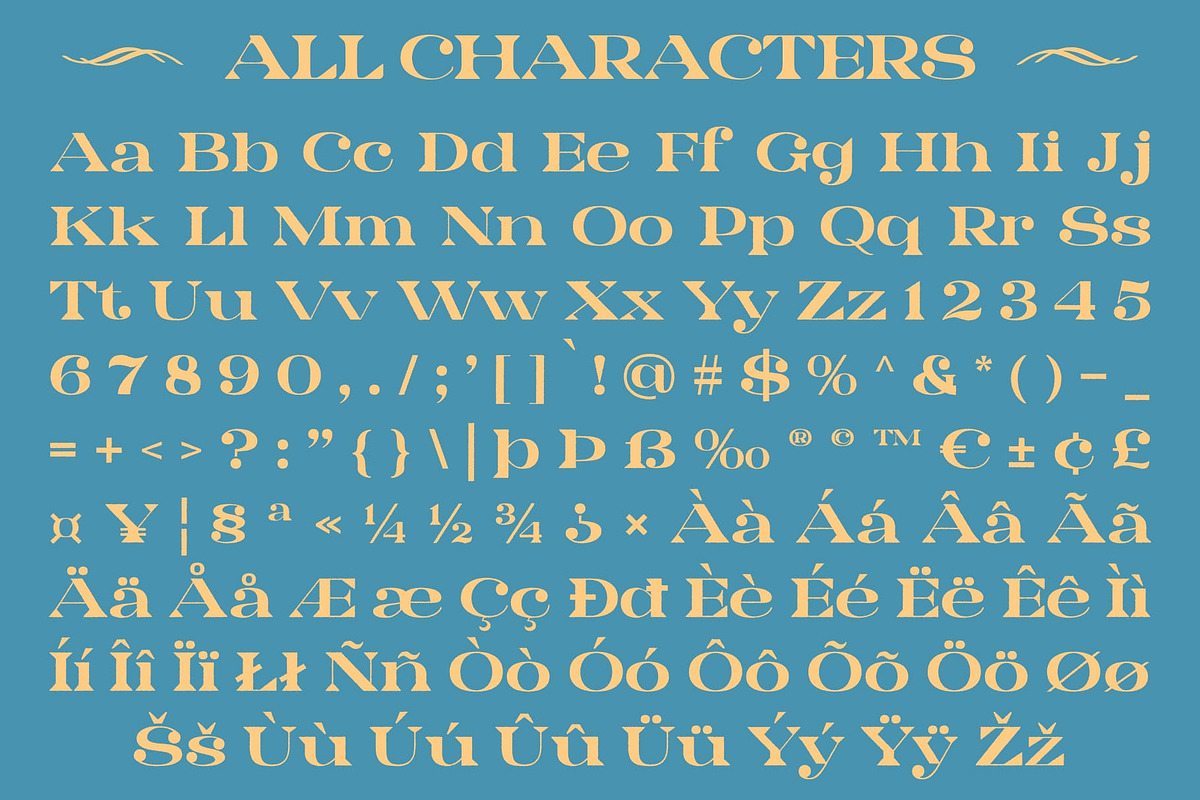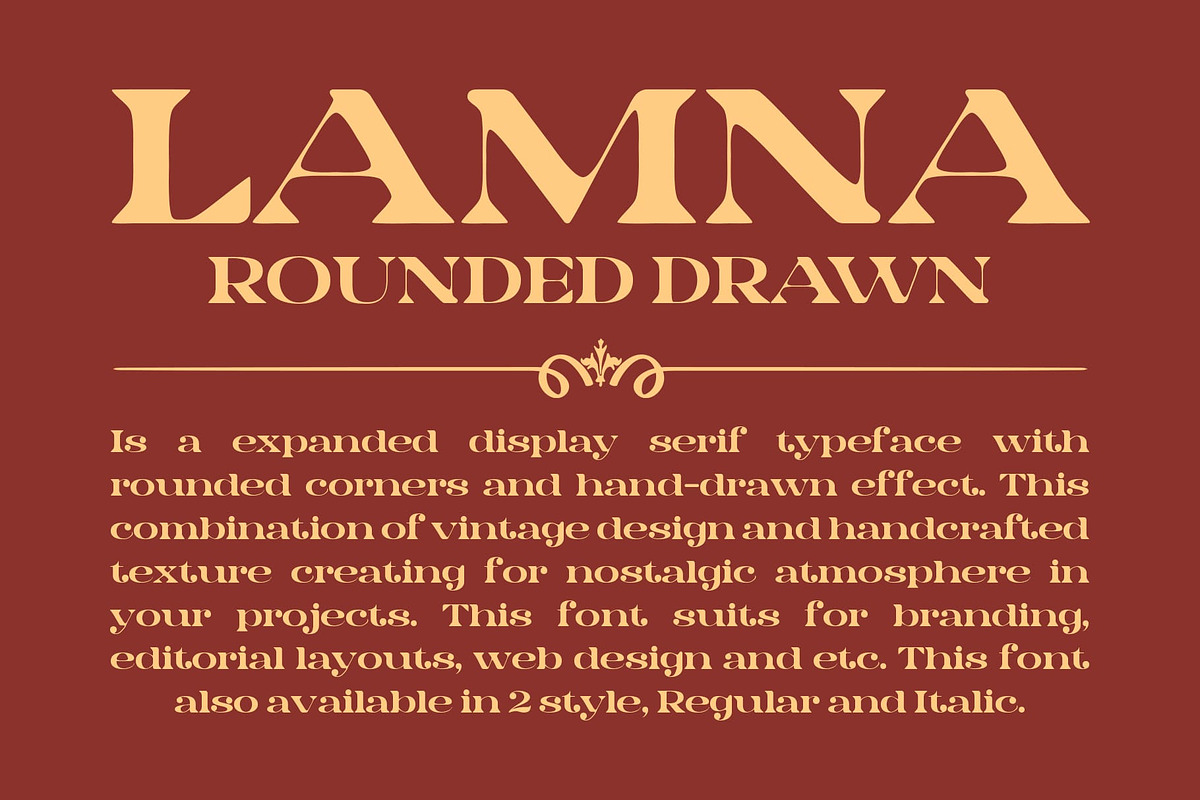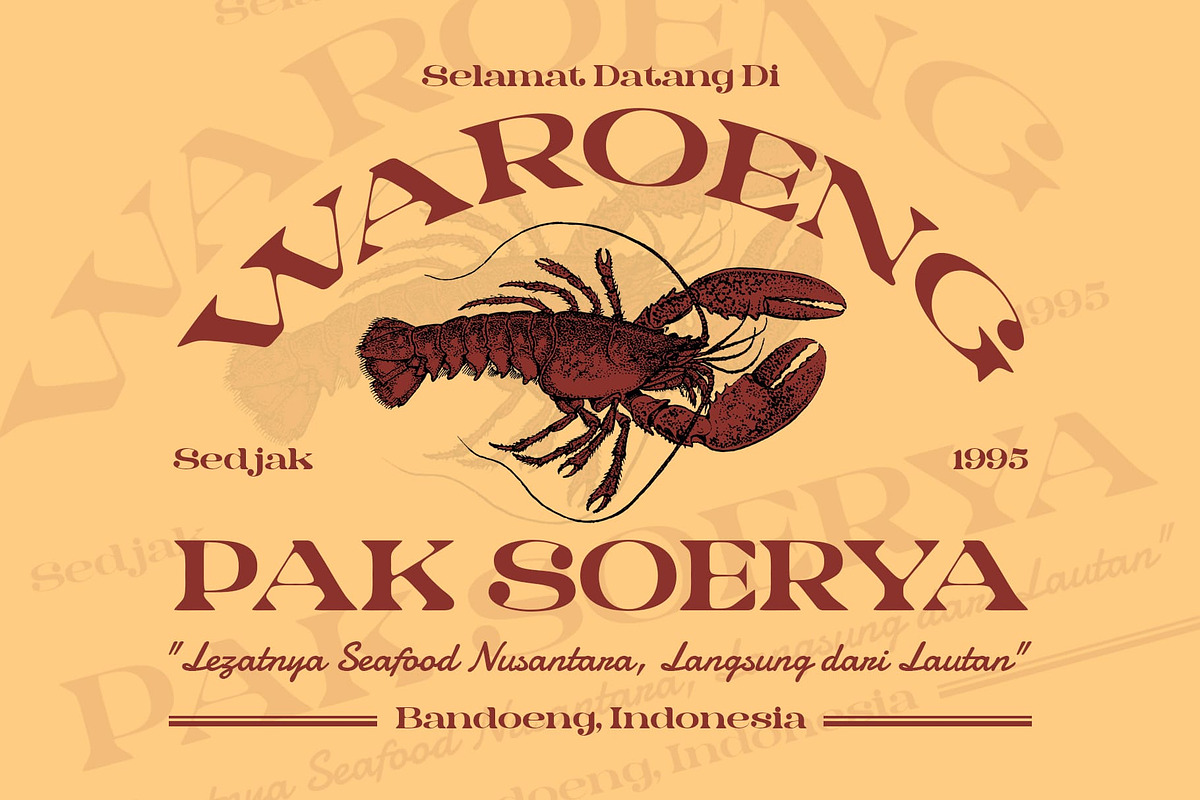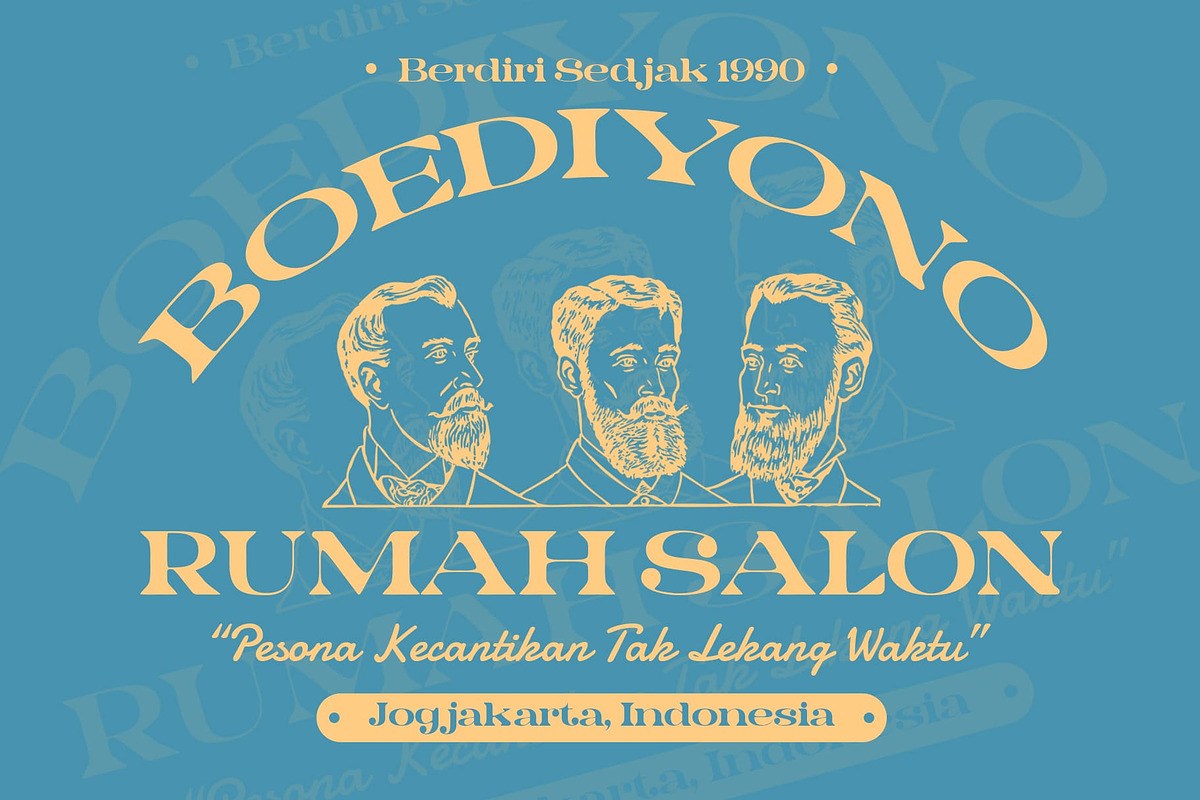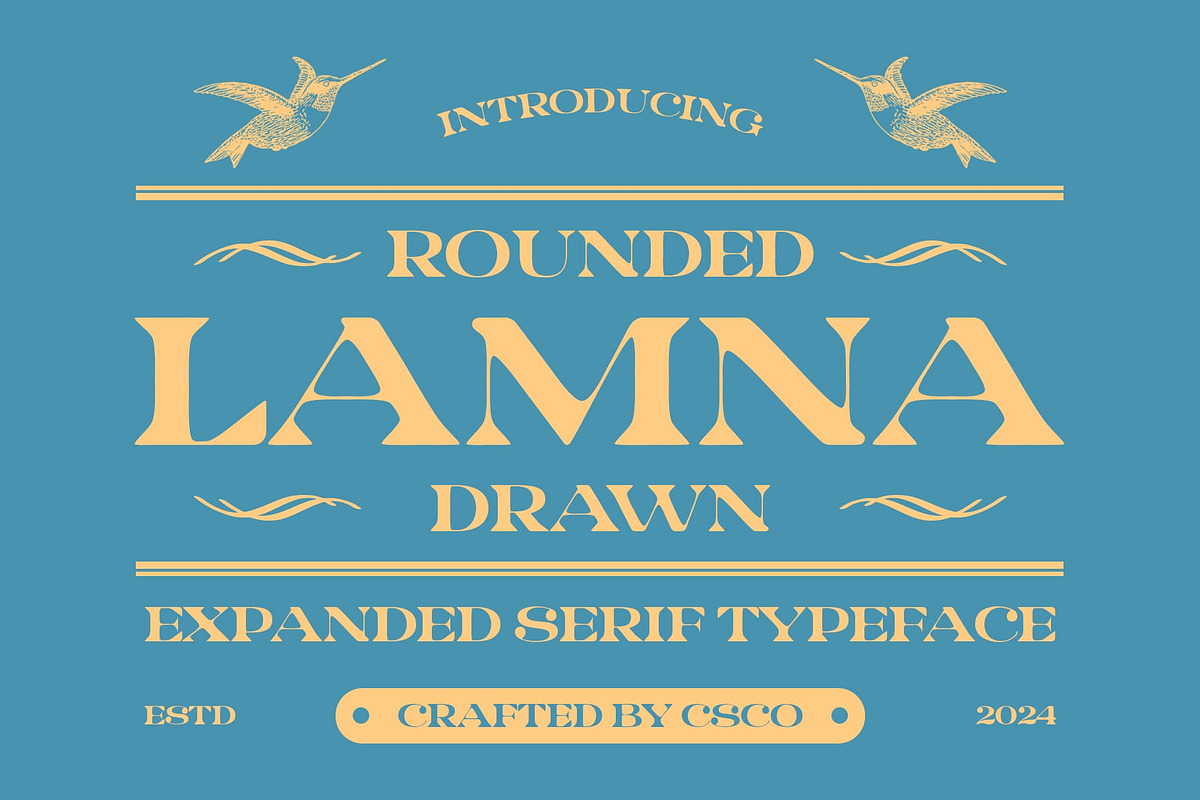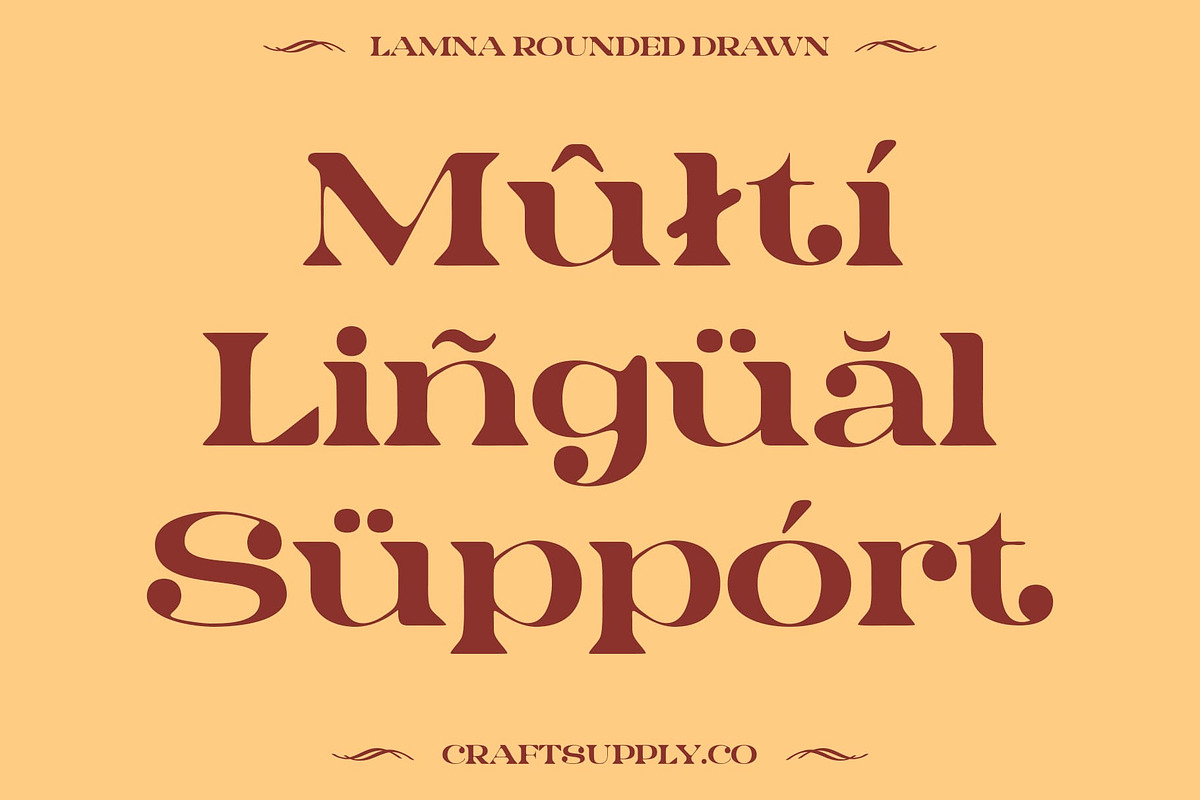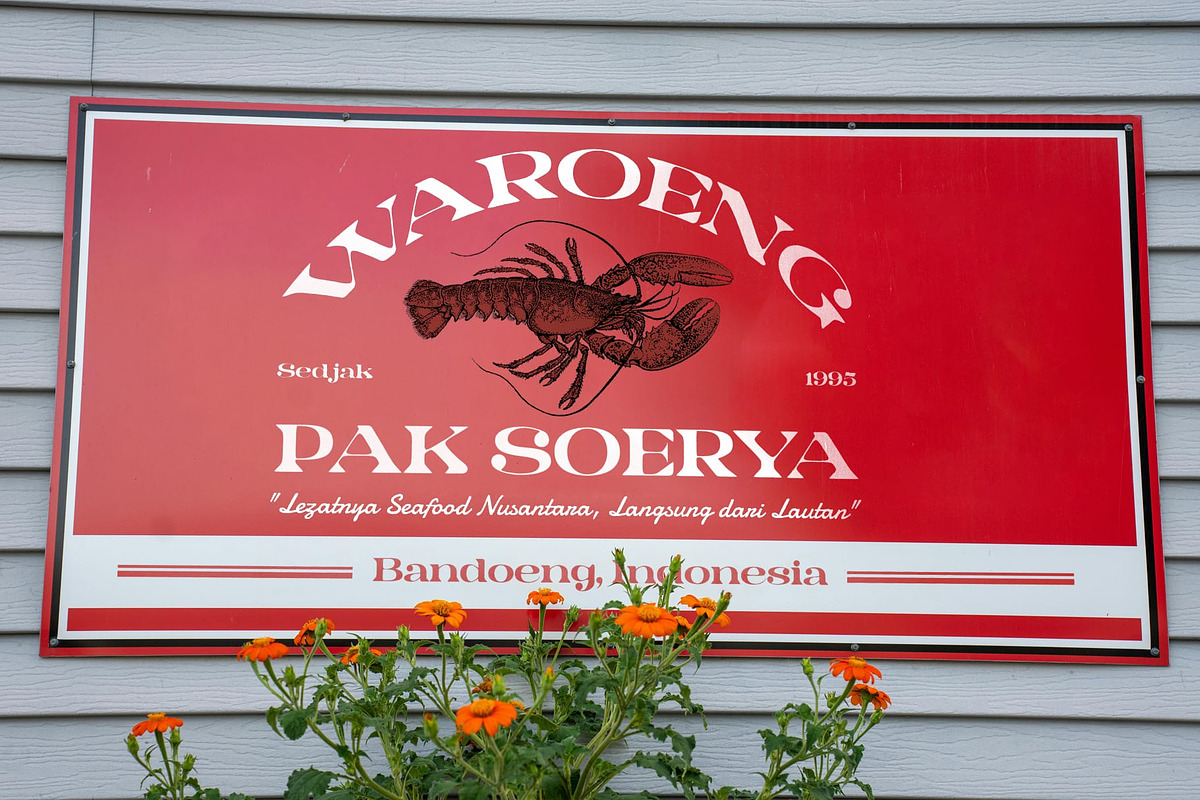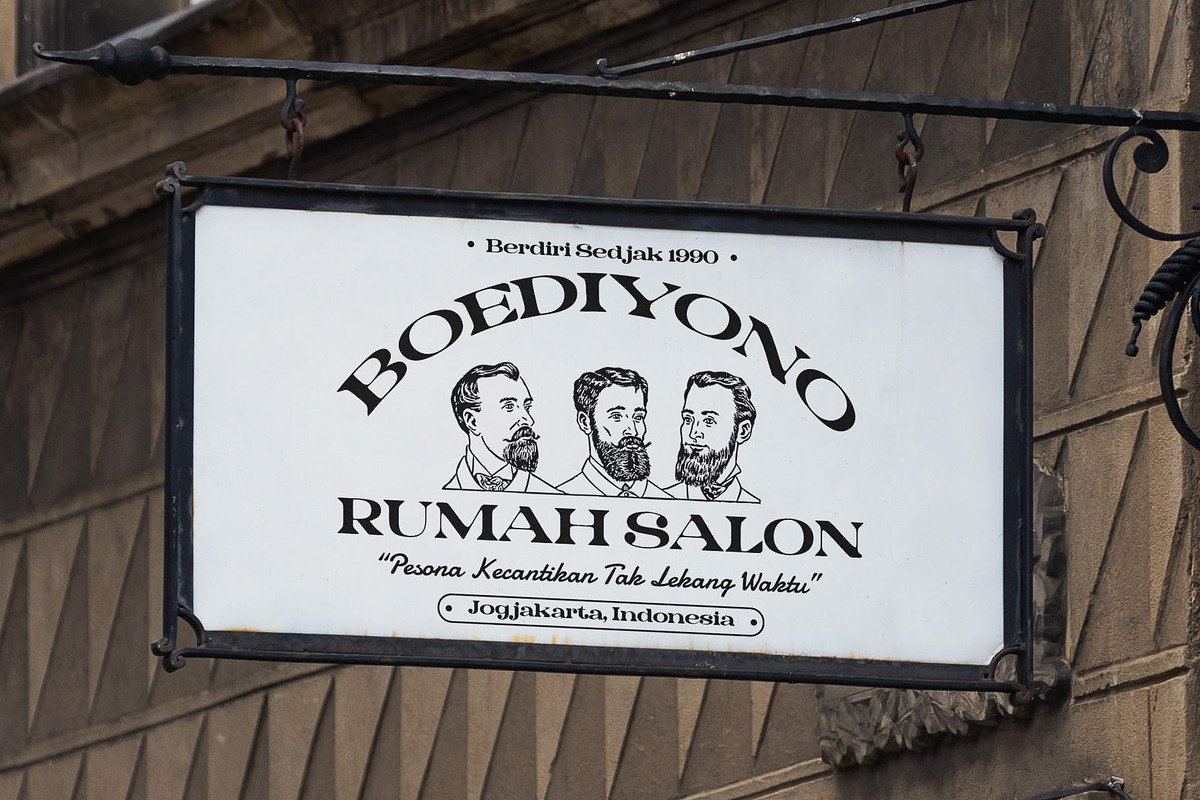
Lamna Rounded Drawn
Lamna Rounded Drawn – Elegant Serif Font
Classic Elegance with a Soft, Artistic Touch This serif font combines wide, bold letterforms with rounded edges, blending traditional sophistication with modern warmth in a distinctive way. The wide design exudes confidence and stability, while the rounded forms soften the overall appearance, offering a gentle and inviting feel. The subtle drawn effect adds a handcrafted, artistic dimension, making the font feel more organic and personal.
Versatile and Refined for Premium Design The unique combination of bold width and soft curves gives this rounded drawn font a timeless elegance, making it ideal for premium design projects. Whether for luxury branding, high-end packaging, or refined editorial layouts, this font offers a visually compelling solution that balances tradition with a touch of creativity.
Artistic Yet Professional The drawn effect adds a handcrafted quality, giving the font an artistic flair while maintaining its professional appeal. It projects an air of exclusivity and character, making it perfect for designs that require a unique and luxurious visual identity. With its blend of wide, rounded forms and elegant serifs, this rounded drawn font is the ideal choice for projects that seek to stand out with both style and substance.